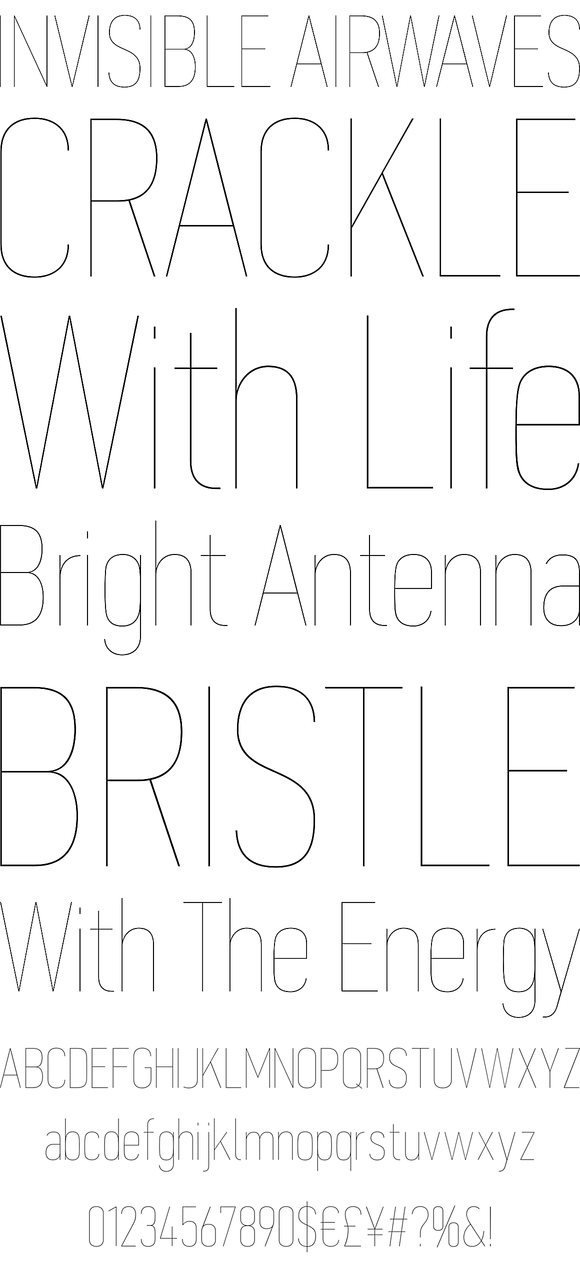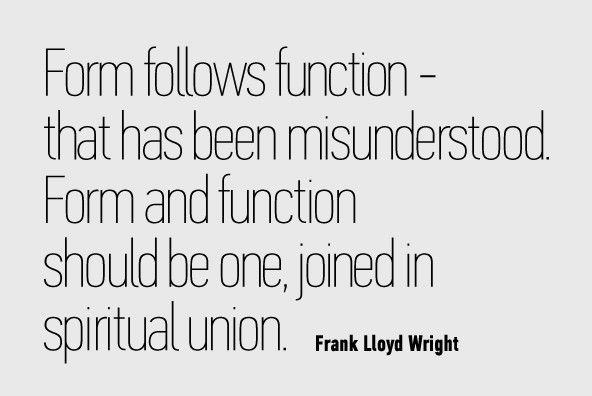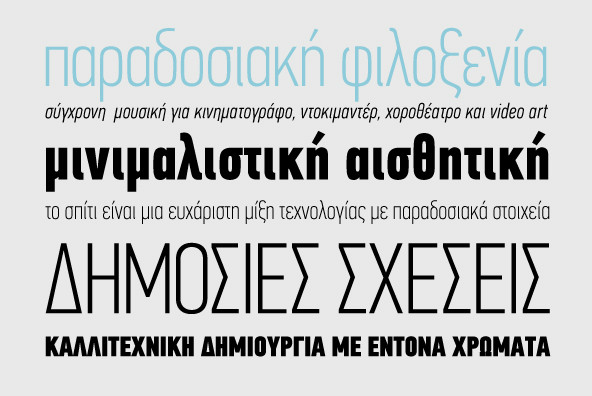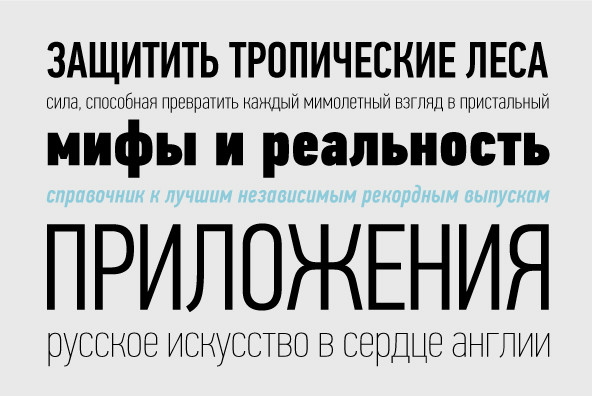
PF DIN Text Compressed Pro
In 1936 the German Standards committee Deutsches Institut Normung (DIN) proposed DIN 1451 as the standard type of lettering to be used in the field of road traffic. The purpose of this standard was to lay down a style of lettering which is timeless and easily legible. This font has been revised by the committee over the years several times but only in two basic styles. The DIN Text series was based on the original standards but was completely redesigned to fit typographic requirements. Completed in 2002, it was first released in 2003 and published in our catalog, as a group of 4 separate families each with 12 weights for a total of 48 weights (regular weights, condensed, compressed and a special display version). The DIN Text Pro series is a brand new and improved version which has been enhanced with more weights, multilingual support and opentype features in all different styles. It has lowercase ascenders that are higher than the capitals, varying letter proportions and italics (just like the first release) that are not a mechanically-obliqued version of the regular weights, but rather true designed italics. An attempt was made to divert from the stiff geometric structure of the original and introduce instead elements which are familiar, softer and easier to read. The glyphs for all languages have been carefully and professionally designed to not only share the same weight and structure but to reflect the current trends in all different scripts as well. Finally, every font in this series has been completed with 270 copyright-free symbols, some of which have been proposed by several international organizations for packaging, public areas, environment, transportation, computers, fabric care and urban life.